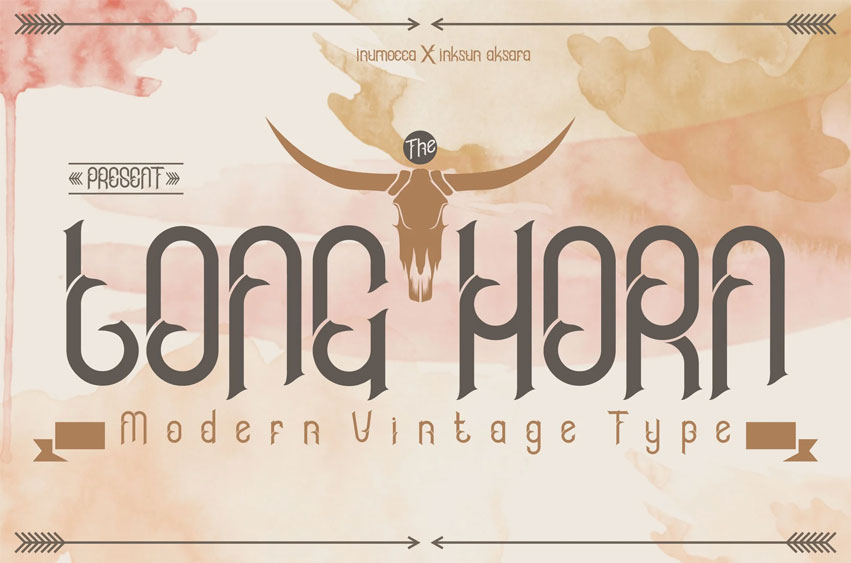
Longhorn Font is suitable for flyers, posters, novels, letterheads, or any design requirements you want to be awesome.
It will certainly amaze your readers.